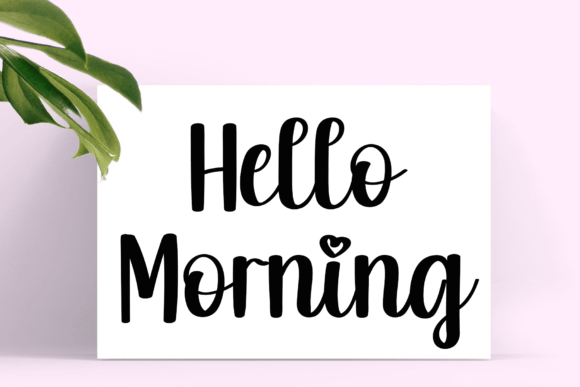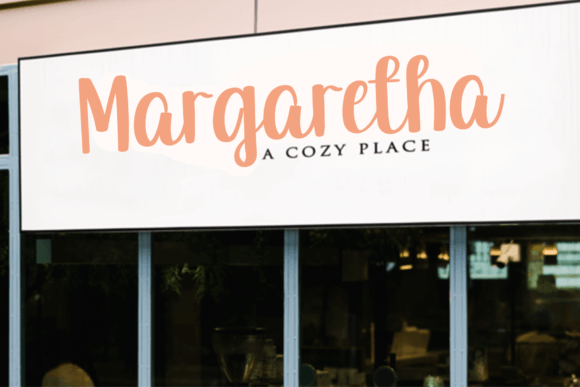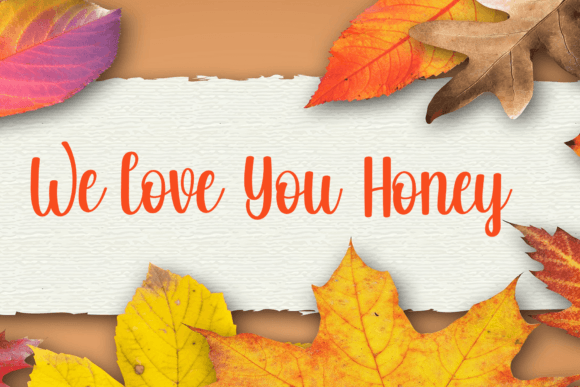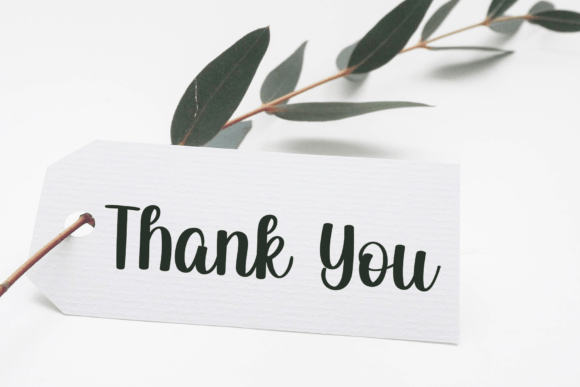
The Perfect Font for Your Holiday Projects
Have you ever been stuck in a design rut, struggling to find the perfect font to bring your holiday project to life? You know that feeling when you’re browsing through fonts, and none of them seem to capture the magic and wonder of the season? That’s where the Hello Holiday Font comes in – a stylish handwritten font designed to add a touch of elegance and sophistication to your designs.
With its contemporary atmosphere and impeccable form, the Hello Holiday Font is inspired by timeless classic calligraphy. Its balanced and varied style makes it the perfect choice for enhancing the beauty of your projects, from festive greeting cards to holiday menus and more. Whether you’re a seasoned designer or a creative beginner, the Hello Holiday Font is a valuable addition to your toolkit.
Hello Holiday Font Key Features
- Unique Characteristics: Hello Holiday Font features a festive and playful design, with intricate details and ornaments that evoke a sense of joy and celebration.
Hello Holiday Font Review
As a designer, I was excited to dive into the Hello Holiday Font and see what it had to offer. Overall, I found it to be a fun and playful addition to any holiday-themed project.
- ✨ Unique and creative design: The font’s quirky charm and festive flair make it perfect for adding a touch of whimsy to holiday graphics, cards, and packaging.
- ✨ Wide range of character styles: The font includes a variety of characters, from bold and bright to delicate and cursive, allowing designers to mix and match to achieve the perfect look.
- ✨ Versatile: The font is suitable for a range of projects, from digital designs to printed materials, making it a great all-around choice for holiday designers.
- ⚠️ Limited language support: Unfortunately, the font only supports English and a few other languages, which may limit its use for designers working with clients who speak other languages.
- ⚠️ Not ideal for body text: While the font is perfect for headlines and graphics, it may not be the best choice for body text, as it can be a bit too playful and distracting for long passages of text.
Overall, I think the Hello Holiday Font is a great addition to any holiday designer’s toolkit. While it may have some limitations, its unique design and versatility make it a fun and engaging choice for a range of projects.
Tip: Use Hello Holiday Font for festive designs, such as holiday cards, gift tags, and social media graphics.
Tip: Use Hello Holiday Font for creative projects, such as greeting cards, invitations, and digital art.
Tip: Use Hello Holiday Font for presentations, reports, and other documents that require a festive touch.
Hello Holiday Font is perfect for:
- Holiday cards and gift tags
- Social media graphics and advertisements
- Greeting cards and invitations
- Digital art and creative projects
Alternatives to Hello Holiday Font